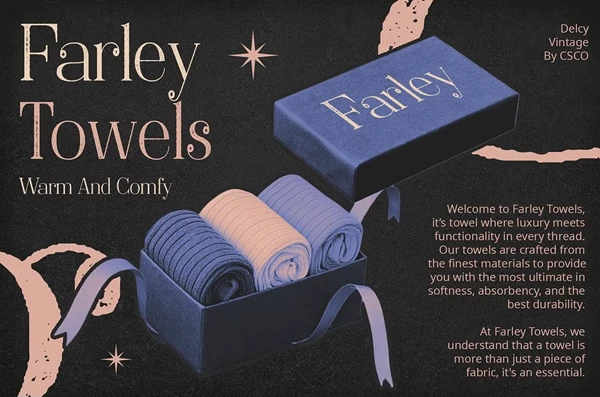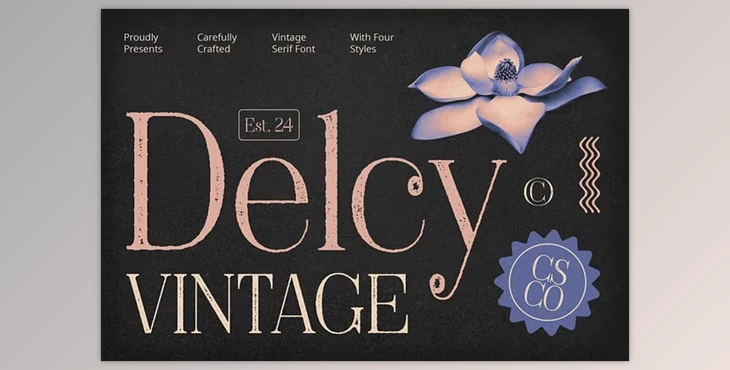
Delcy Vintage Font: Delcy Vintage is a meticulously crafted font that combines high contrast serif design with a rough drawn stamp effect, evoking a sense of vintage elegance and authenticity. Designed to command attention, its bold strokes and delicate details create a captivating visual impact reminiscent of handcrafted lettering from a bygone era. Each character in Delcy Vintage exudes nostalgia and timeless charm, making it an ideal choice for vintage-inspired projects such as branding, signage, packaging, and editorial design.
The font package includes four unique styles: Delcy Regular, Delcy Drawn, Delcy Rough, and Delcy Stamp. These styles offer versatility and allow designers to achieve the perfect look for their projects. The font features a comprehensive set of uppercase and lowercase characters, numerals, punctuation, and accents, supporting multilingual characters. It is PUA encoded, ensuring ease of use and accessibility.
Delcy Vintage’s distinctive style not only adds flair to any design but also imbues it with a sense of heritage and sophistication. Whether used in branding or editorial contexts, this font transports viewers to a timeless era of elegance and refinement.